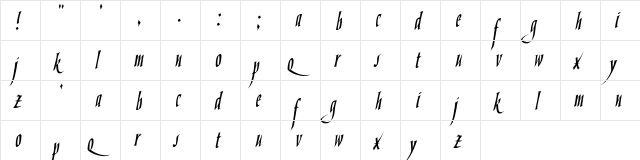
Handskript One
Design Context for Handskript Typeface
Handskript flows with the natural rhythm of handwritten lettering, making it ideal for designs that call for warmth and personal expression.
Font Pairing: Combine Handskript with a simple geometric sans for maximum contrast — the tension between flowing curves and clean structure is a classic typographic pairing.
Pro Tip: Pair Handskript with a clean sans-serif for supporting text. The contrast between fluid script and geometric structure creates an elegant typographic hierarchy.